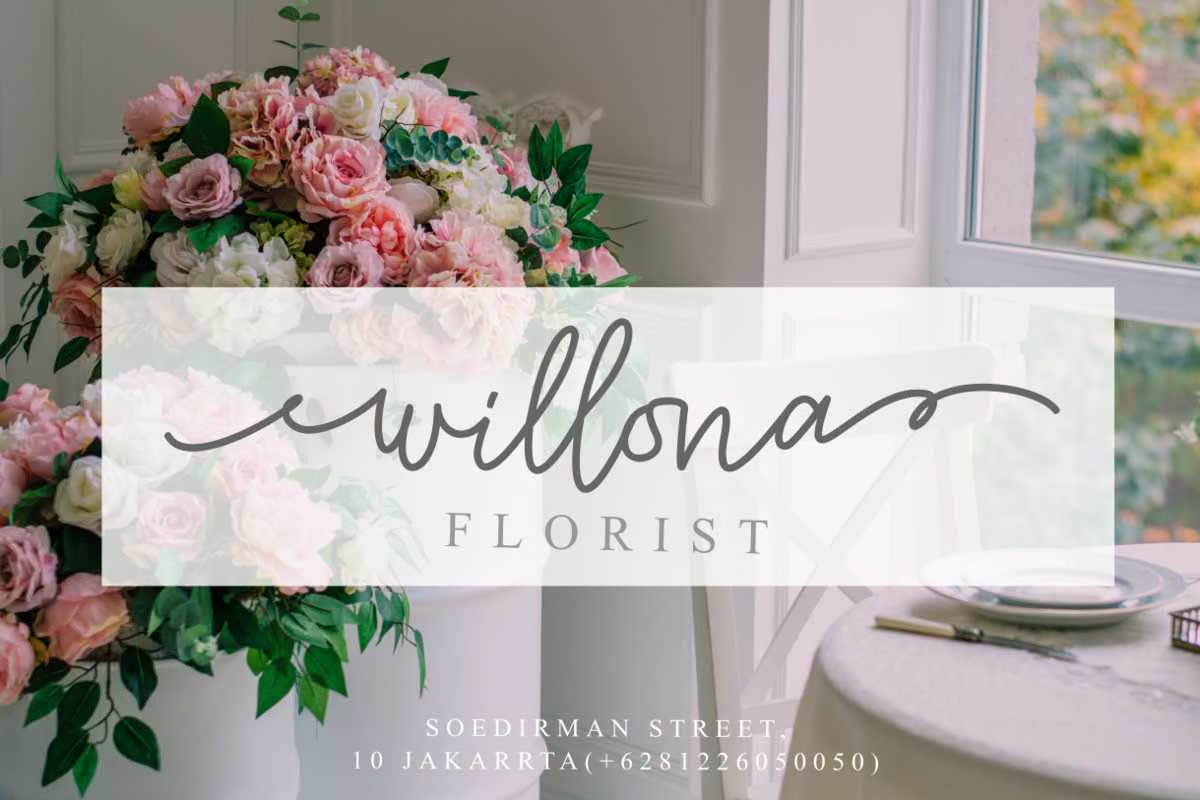
JalliestHasSignaturesAMonLineScriptFontWithHandritTensSignatureStyle.JalliestHasSignatureFontWithOriginalHandritingPen.ThisCollectionofScriptFontWithPersonalBranding.ThisWorkwell for anyApplications.JalliestHasSignaturesAMonLineScriptFontWithHandritTensignatureStyle.JalliestHasSignatureFontWithOriginalHandritingPen.ThIsCollectionofScriptsPerfectforPersonalBranding。此工作井用于所有应用程序。